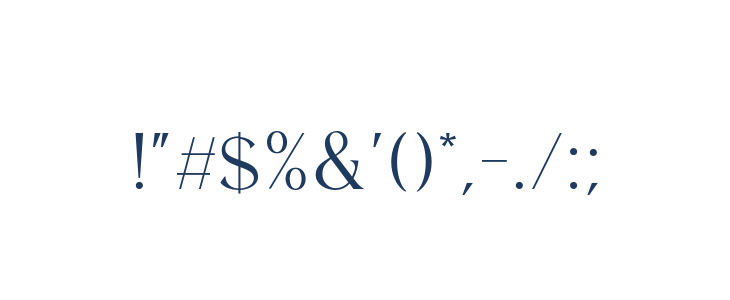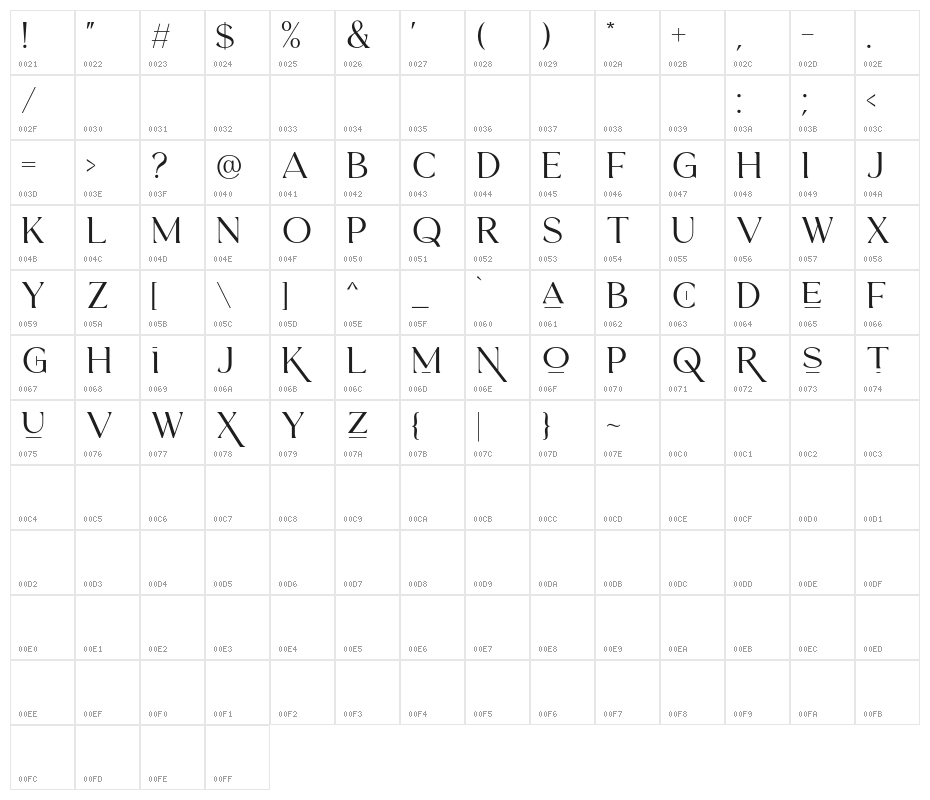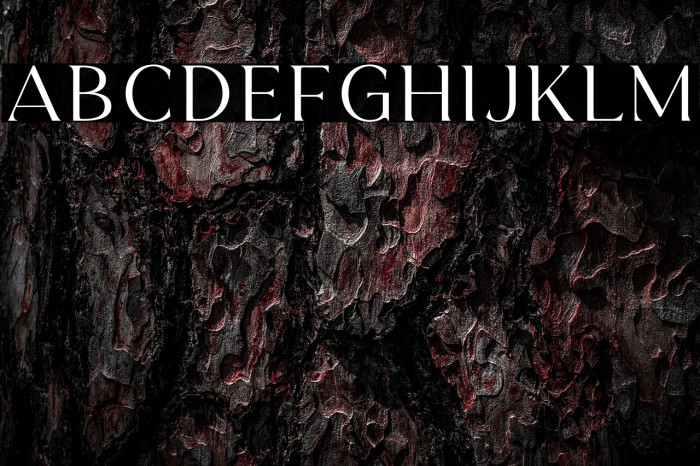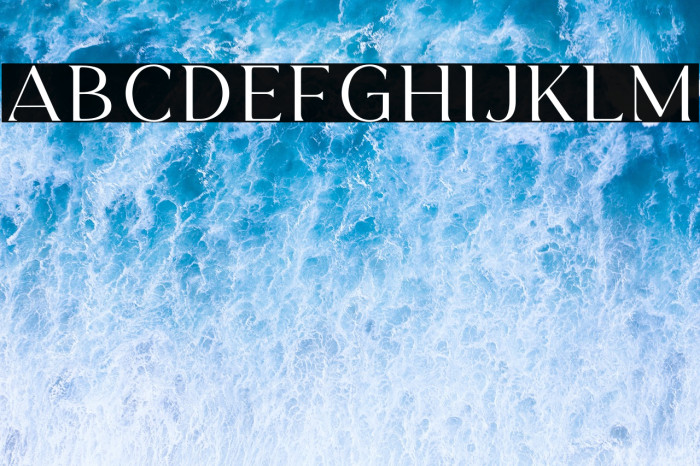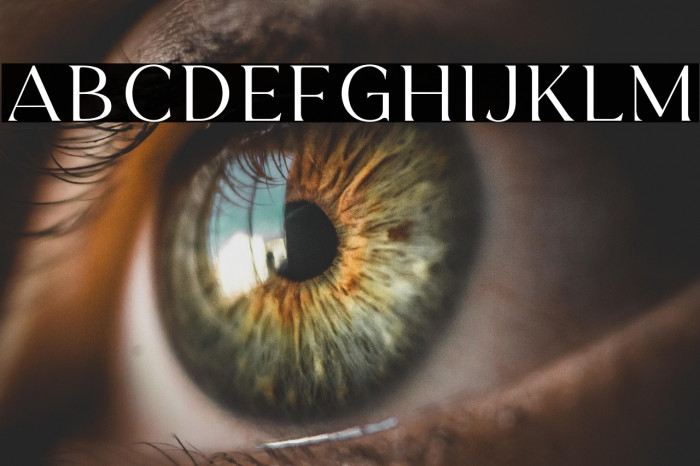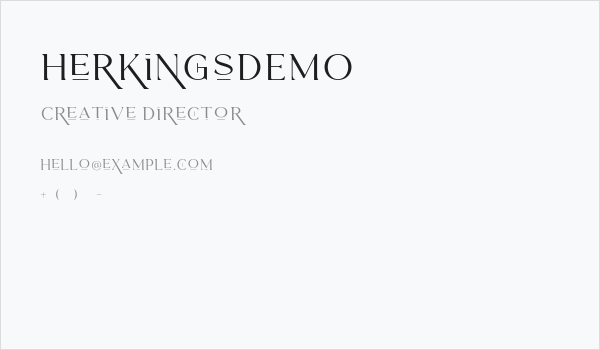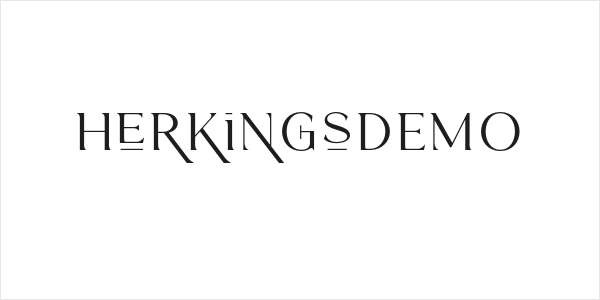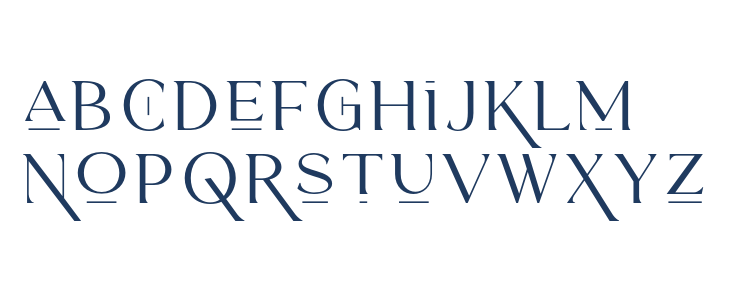
HerkingsDEMO Font
HerkingsDEMO Description
This font features a modern and elegant design with a unique twist on traditional serif elements. The uppercase letters are characterized by clean lines and sharp angles, while the lowercase letters maintain a consistent style with subtle variations. The font includes distinctive diagonal cuts and underlines on certain characters, adding a contemporary flair. The numerals and special characters are crafted to match the overall aesthetic, ensuring a cohesive look. This font is ideal for projects that require a sophisticated and stylish appearance.
| Proposed Projects | Ideal for branding, editorial design, and luxury product packaging. |